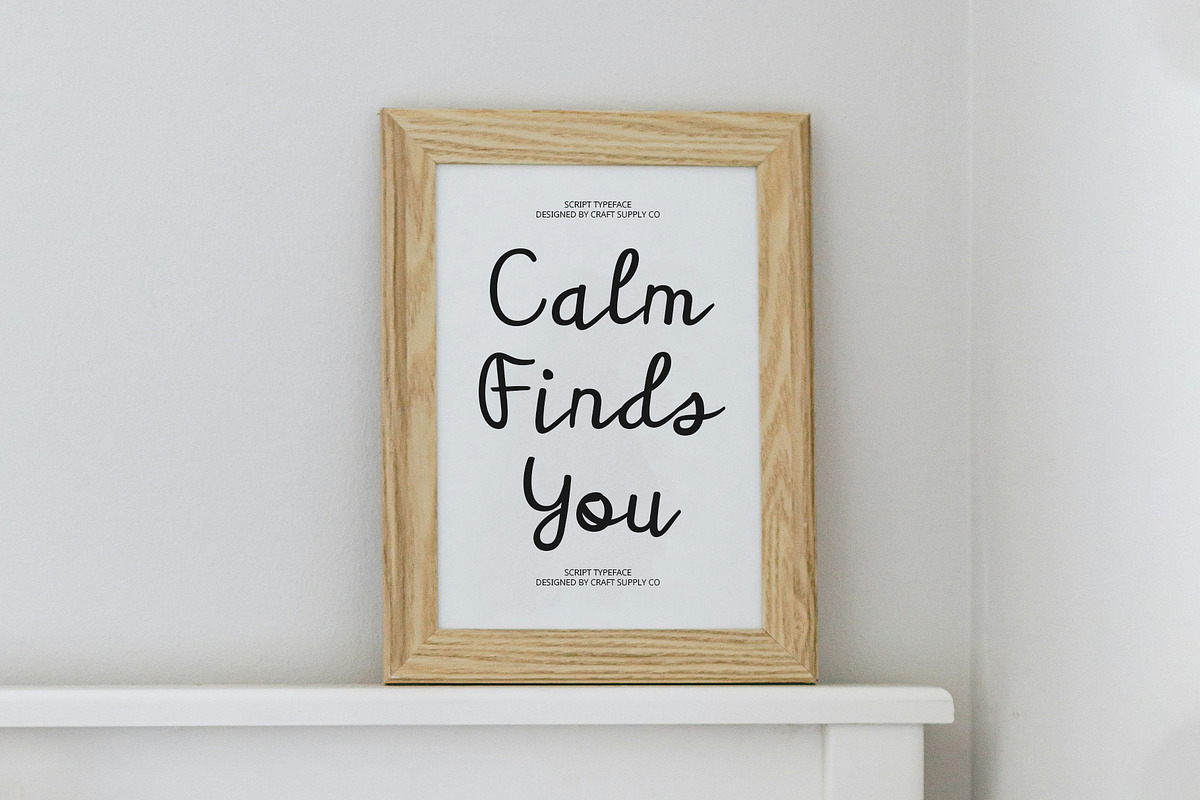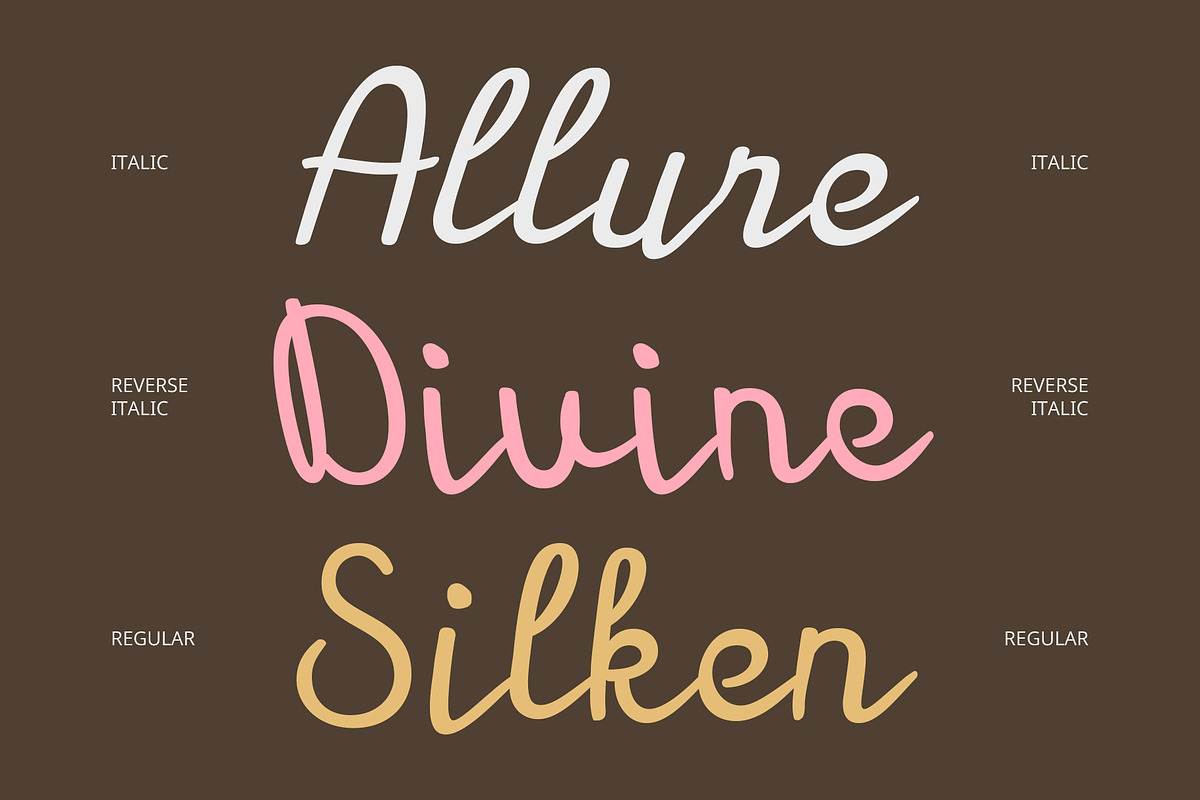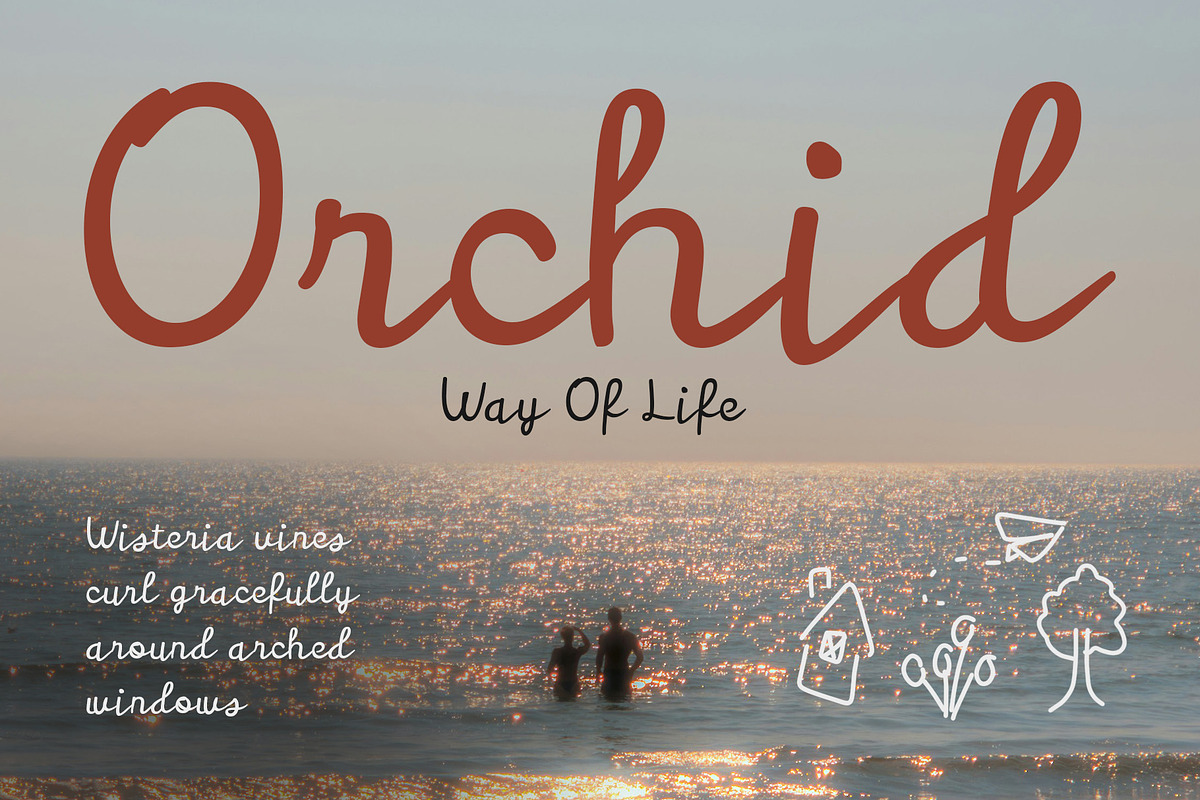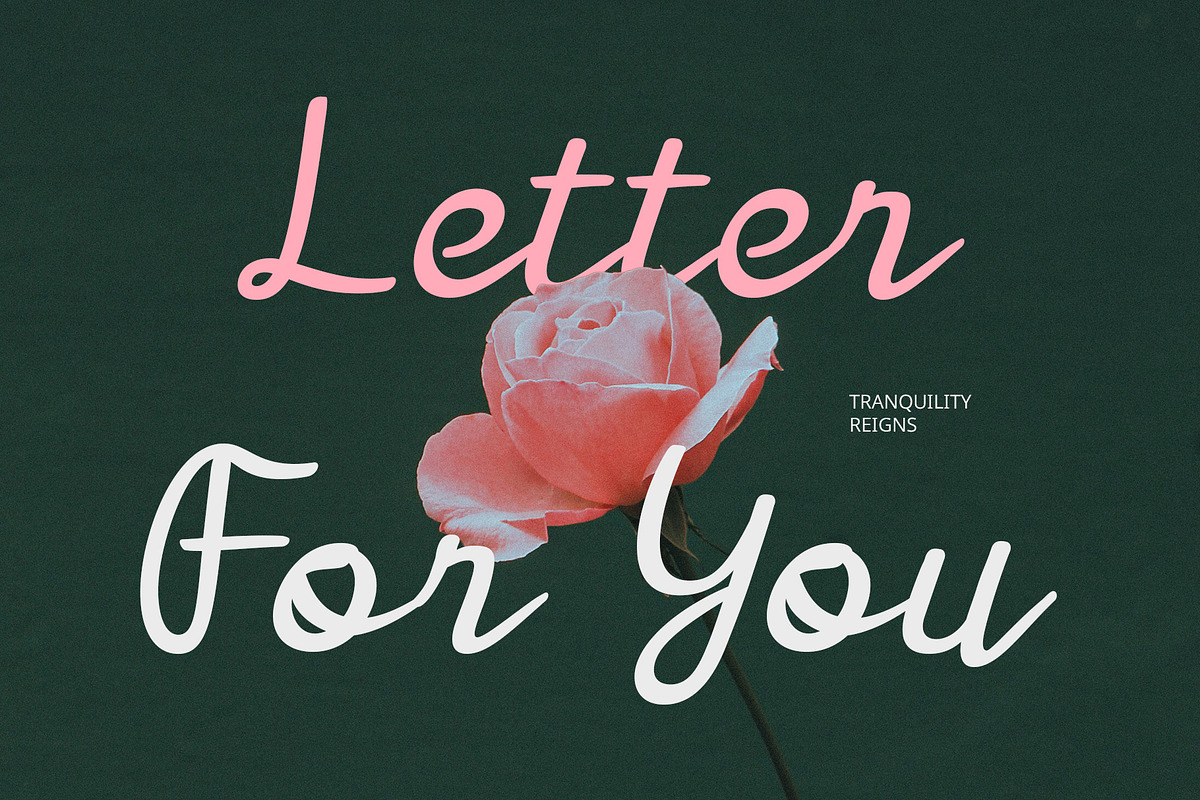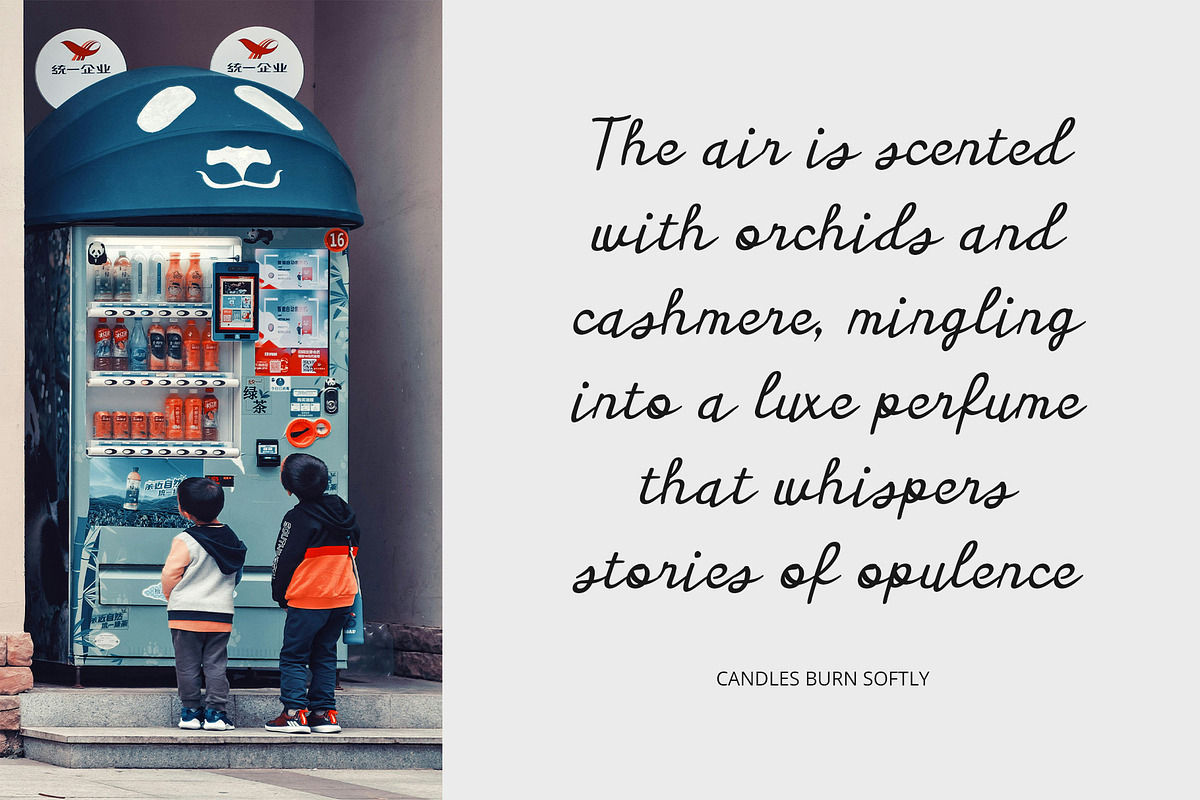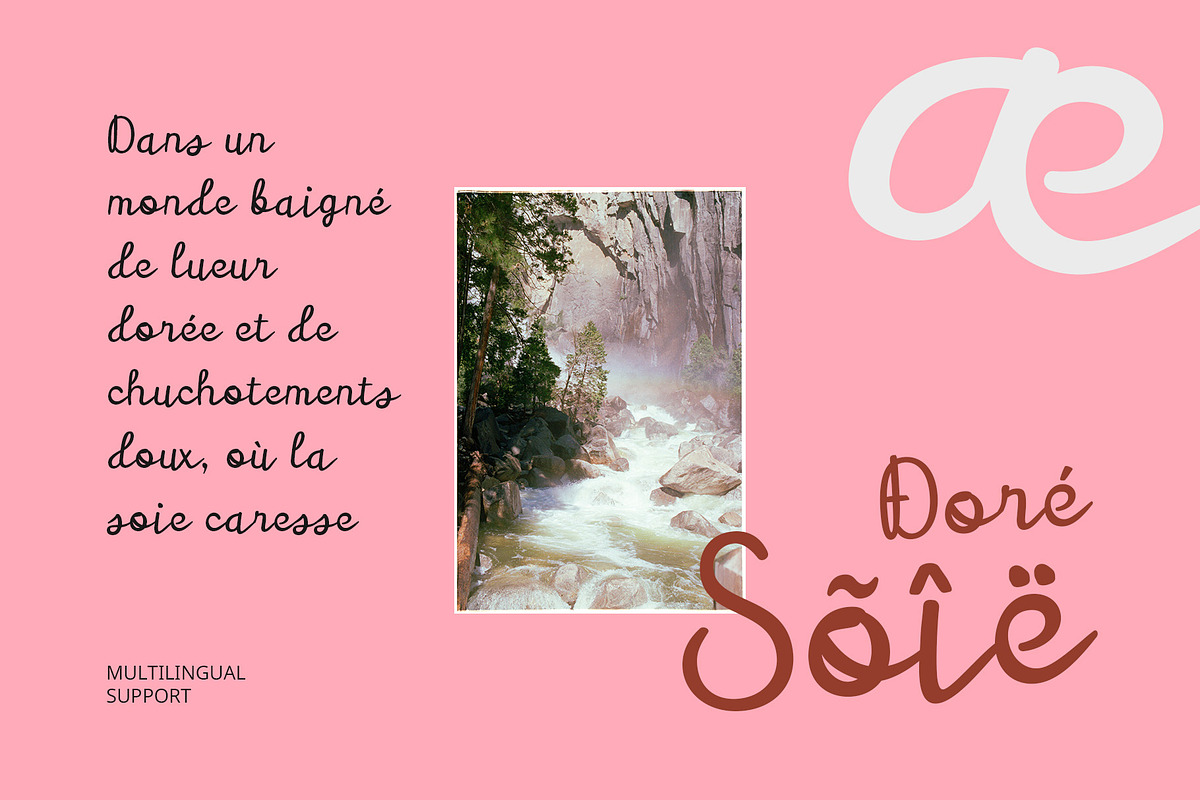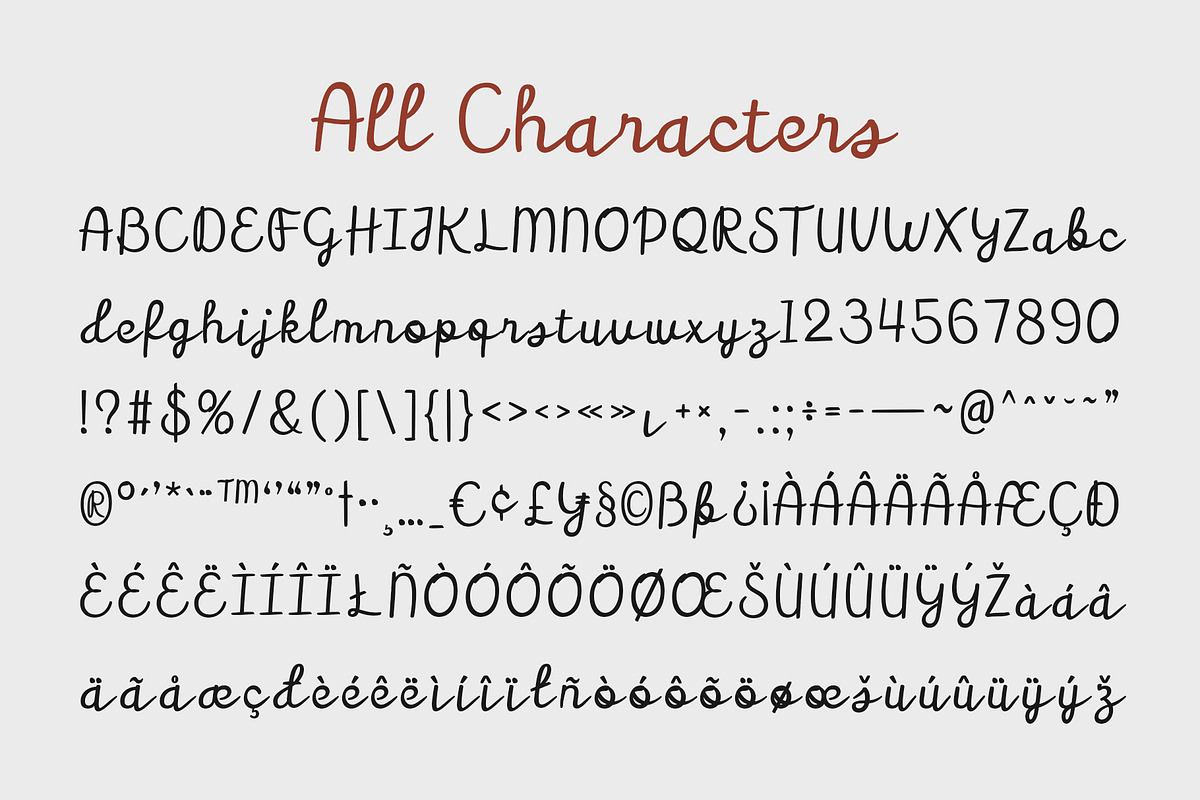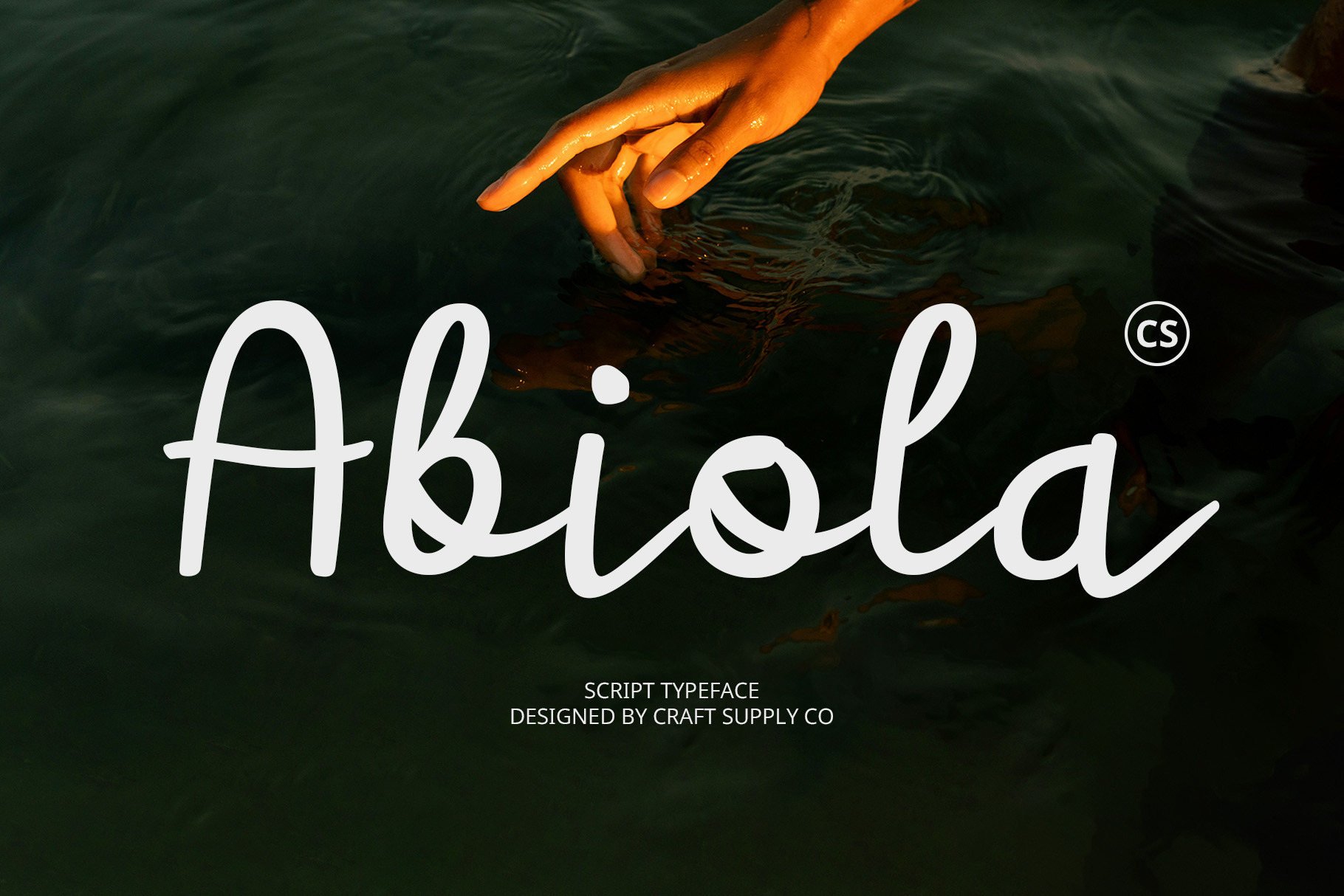
CS Abiola – Script Font
CS Abiola Font – A Graceful Modern Script with Feminine Charm
Elegant Flow, Personal Touch CS Abiola is a modern script font that captures the essence of graceful cursive handwriting with a clean and contemporary structure. Each letter is designed with gentle curves and smooth connections, giving the typeface a natural, flowing rhythm that mimics authentic pen strokes.
Sweet, Feminine, and Stylish The letterforms radiate a soft, feminine charm that feels cute, sweet, and full of personality. With its subtly playful yet elegant structure, CS Abiola evokes a sense of warmth, beauty, and intimacy, making it perfect for adding a personal and emotional layer to your designs.
Versatile for Romantic and Stylish Designs Whether you’re working on beauty product packaging, wedding invitations, handwritten quotes, or romantic-themed social media content, CS Abiola provides the ideal blend of refinement and friendliness. Its smooth strokes and expressive shapes bring a touch of romantic sophistication to every project.
The Perfect Blend of Modern and Handcrafted From delicate packaging to editorial spreads, or romantic event materials to fashion-forward campaigns, CS Abiola adds a unique emotional layer to any visual experience. It’s the perfect choice for those who want to express love, femininity, creativity, and sincerity through beautifully written forms.
- CS Abiola Regular
- CS Abiola Italic
- CS Abiola Reverse Italic